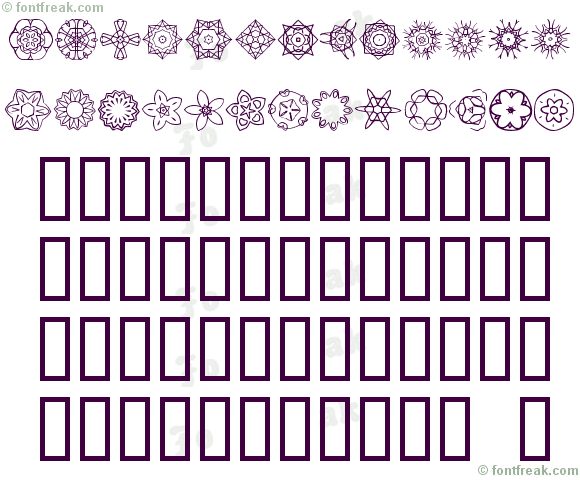
JI Kaleidoscope Bats 2
About JI Kaleidoscope Bats 2
The JI Kaleidoscope Bats 2 font by Jeri Ingalls is a unique decorative typeface that falls into the category of dingbats. This whimsical font features an array of intricate designs and symbols, perfect for adding a playful touch to your projects. The visual characteristics of this font include a consistent stroke weight that maintains clarity while presenting a variety of decorative elements. The spacing between these elements is thoughtfully designed to ensure that each character stands out, making it suitable for creative applications where visual impact is key.
This font is ideal for a wide range of use cases. It can enhance wedding invitations with its charming motifs, create eye-catching movie posters that draw attention, and make restaurant menus more engaging with its fun visuals. Additionally, it can be used effectively in children’s book illustrations or as part of branding materials for businesses targeting a younger audience. Graphic designers and content creators will find this font particularly appealing, as it allows for innovative expression and creativity in their work.
What sets the JI Kaleidoscope Bats 2 font apart is its ability to blend functionality with artistic flair. It offers a free download option, making it accessible for small business owners and freelance designers looking to elevate their projects without incurring additional costs. The playful designs invite users to experiment and explore various creative avenues, ensuring that their work stands out in a crowded marketplace. The JI Kaleidoscope Bats 2 font free download is a fantastic resource for anyone looking to inject a touch of whimsy and originality into their designs.